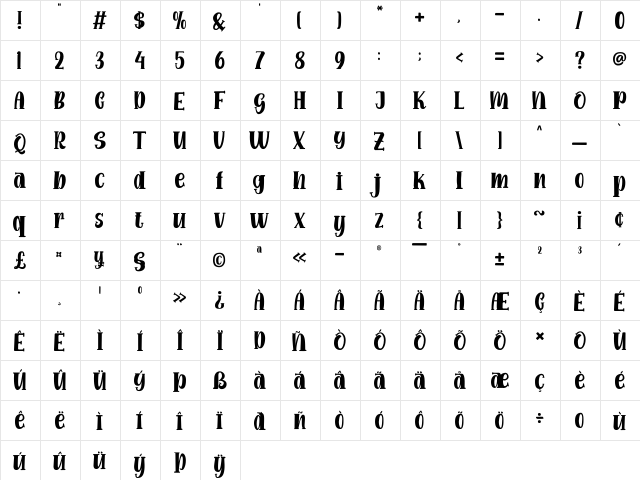
Funny Gang Regular
Design Context for Funny Gang Typeface
Funny Gang has an approachable, lighthearted character — its loose, expressive forms are well-suited to children's content, casual branding, and fun-first design.
Font Pairing: Pairs well with a rounded or humanist sans for body copy, maintaining the friendly tone without relying on Funny Gang to carry extended reading.
Pro Tip: Avoid using Funny Gang for long passages of text — it works best for headlines, labels, and short calls to action.